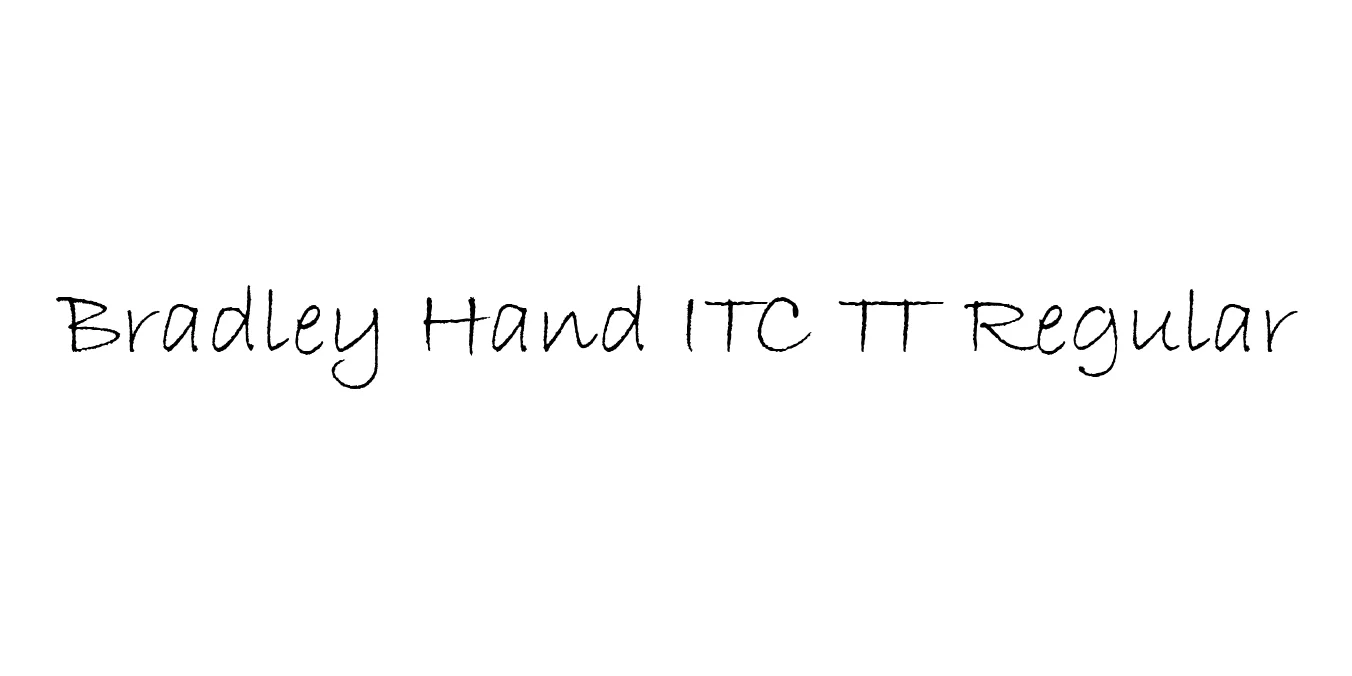
Bradley Hand ITC TT Regular
Designed by Richard Bradley
| Category | Script / Handwriting |
| Designer | Richard Bradley |
Bradley Hand ITC was created by the British designer Richard Bradley and released by the International Typeface Corporation in 1995. The font was specifically designed to capture the essence of the designer's own handwriting, providing a look that is both personal and informal. Its slightly calligraphic nature gives it a rhythmic flow that sets it apart from more standard, rigid script typefaces, making it a popular choice for designs that require a human touch.
Because it maintains a high level of legibility while appearing handcrafted, Bradley Hand ITC TT Regular has become a staple in digital correspondence and casual publishing. It effectively mimics the look of a felt-tip pen on paper, which helps in conveying a friendly and approachable tone. Over the years, its inclusion in major operating system font bundles has solidified its status as one of the most recognizable handwriting fonts in the world.
Bradley Hand ITC TT Regular Best Uses
Excellent for informal party invites and personal greeting cards.
Great for businesses looking for an organic or hand-made brand identity.
Provides a friendly and conversational look for image overlays and stories.
Works well for artisanal products like soaps, candles, or craft foods.